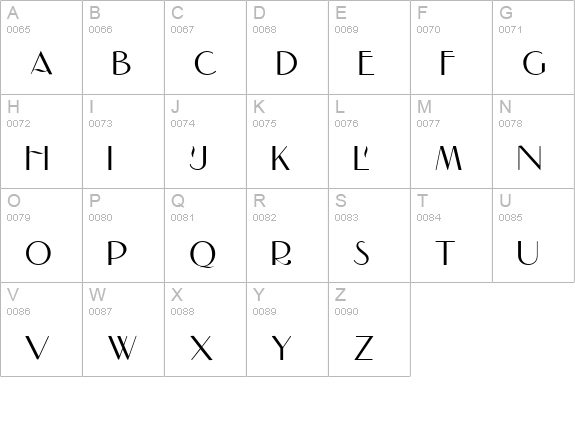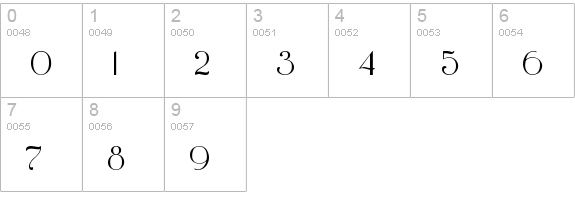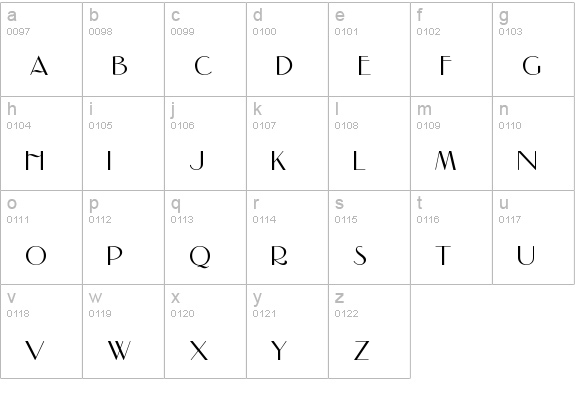
Nadall Font Details
Introducing Nadall font, a stunning typeface that effortlessly combines elegance with modernity. With its sleek and sophisticated design, this font is perfect for adding a touch of class to any project. Whether you're creating a logo, designing a website, or crafting beautiful invitations, Nadall font will elevate your work to new heights. What sets Nadall font apart is not only its impeccable craftsmanship but also its accessibility. This incredible font is freely available to download at FontsMarket.com. Yes, you read that right - it's completely free! Now you can enjoy the beauty and versatility of Nadall font without breaking the bank. Featuring a wide range of weights and styles, Nadall font offers endless possibilities for customization. From bold headlines to elegant paragraphs, this font effortlessly adapts to any layout, making it a versatile choice for both print and digital designs. Its clean lines and balanced proportions ensure readability across various sizes and mediums, ensuring that your message is always delivered with clarity and impact. Nadall font's attention to detail is evident in its carefully crafted letterforms and subtle curves. Every stroke is meticulously designed to create a harmonious flow, capturing the eye and leaving a lasting impression. Its timeless aesthetic bridges the gap between classic and contemporary, making it a go-to choice for designers seeking a font that stands the test of time. So, why wait? Download Nadall font for free at FontsMarket.com today and unlock the potential to create truly exceptional designs. Whether you're a professional designer or a creative enthusiast, Nadall font is the perfect tool to bring your vision to life. Don't miss out on this incredible opportunity to elevate your design game with a font that blends elegance, versatility, and accessibility seamlessly.